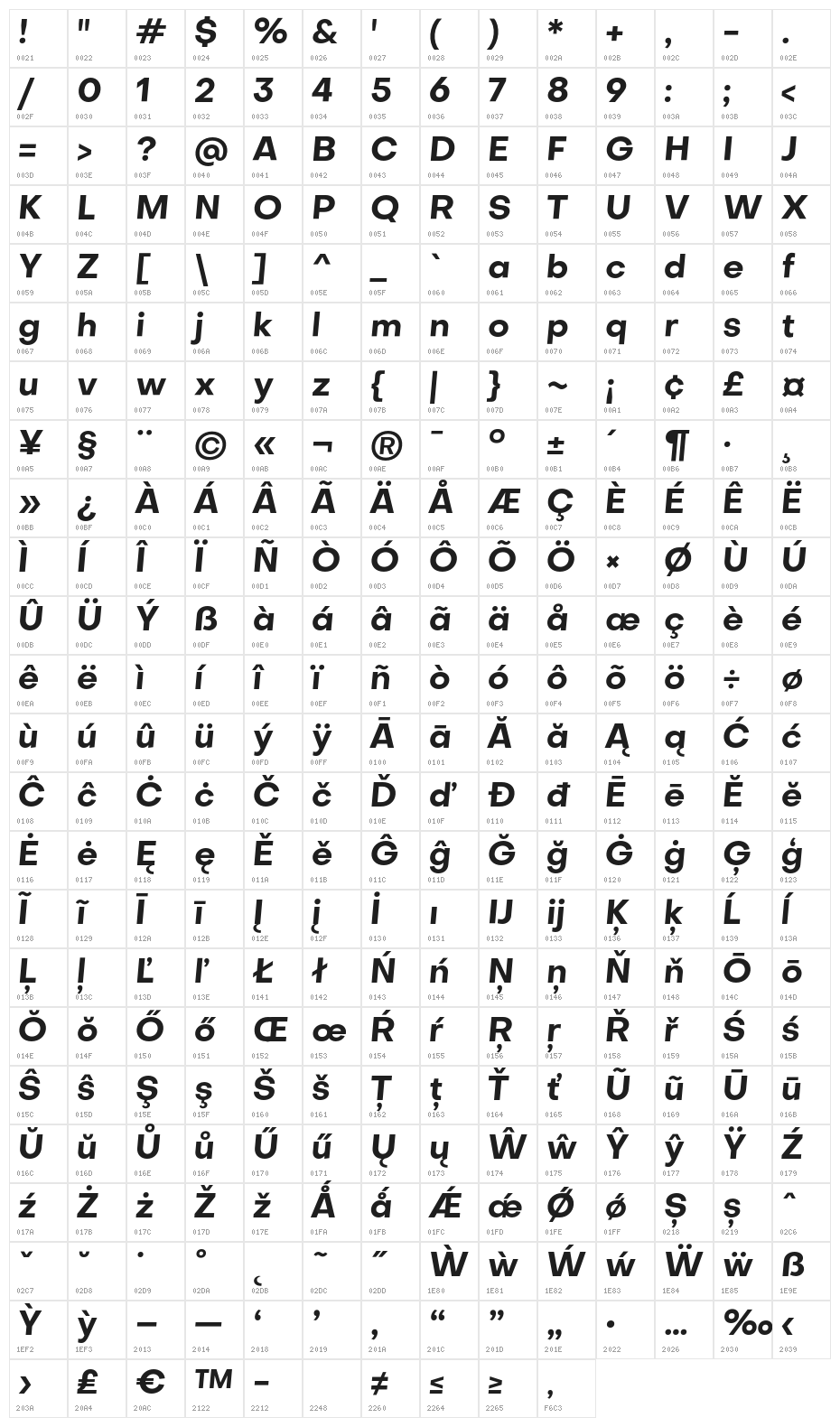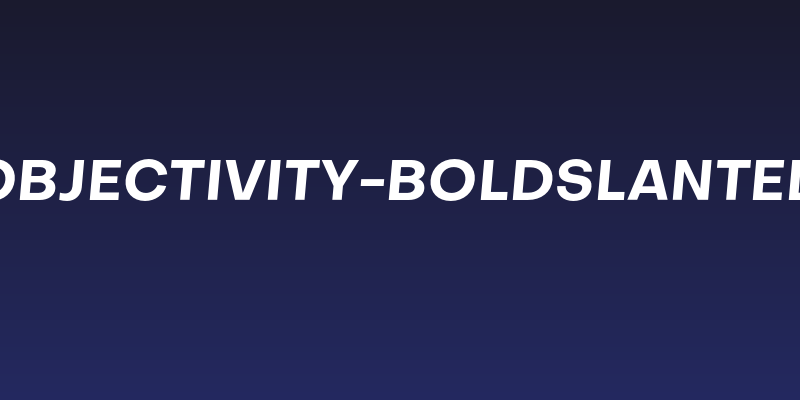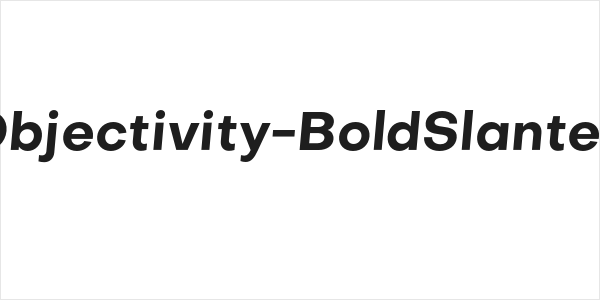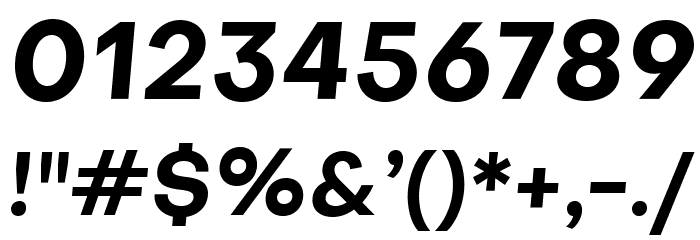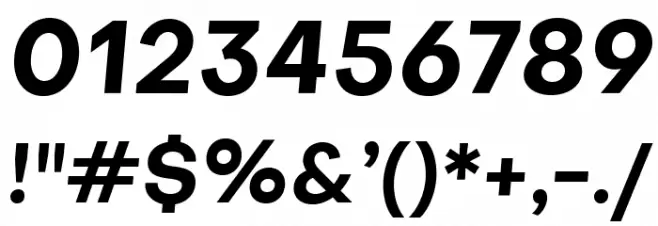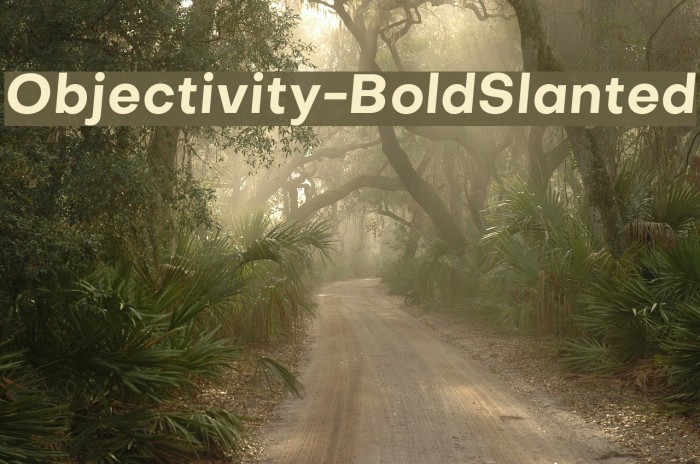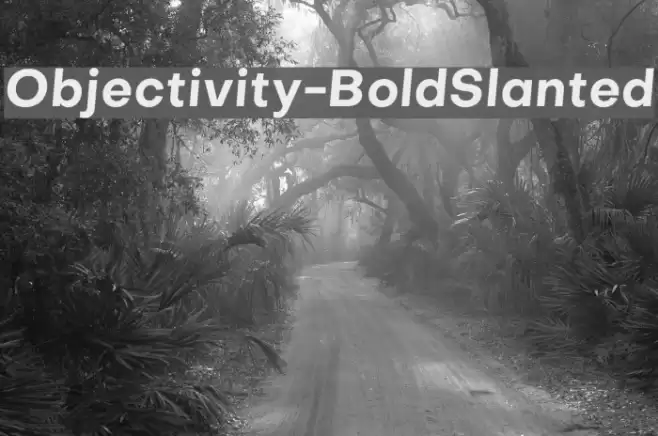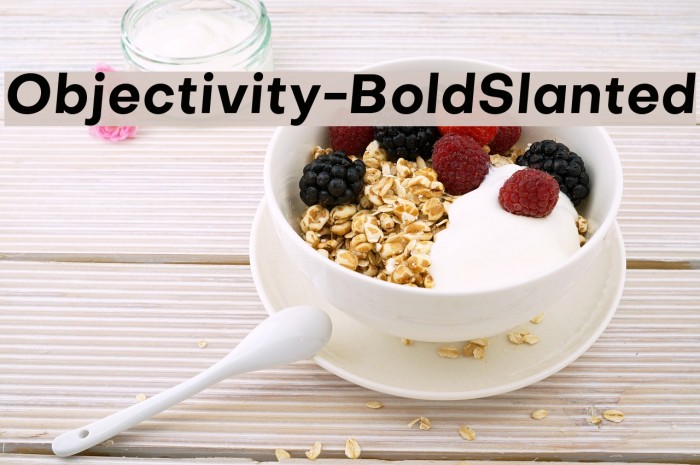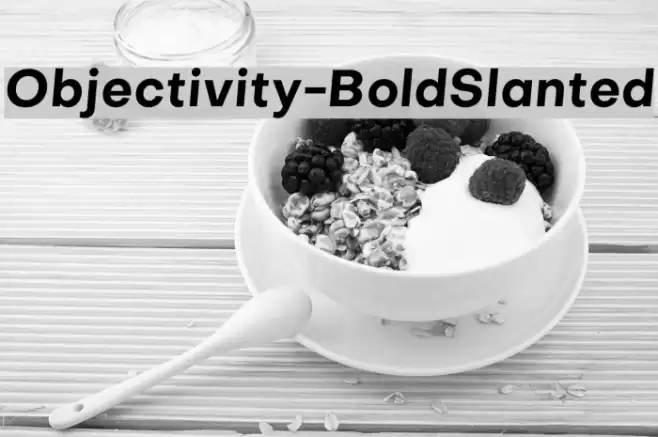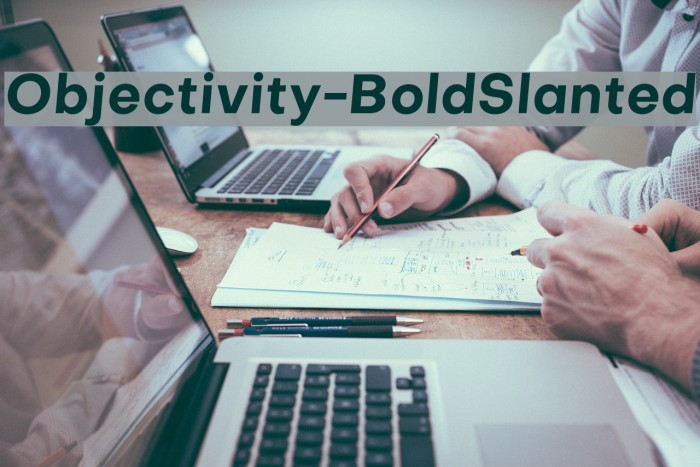
Objectivity-BoldSlanted Font
Objectivity-BoldSlanted Description
This typeface features a bold and slanted design, characterized by its strong, assertive presence. The letters are uniformly thick, providing a consistent and powerful look. The slant adds a dynamic and forward-moving feel, making it suitable for modern and energetic designs. The uppercase and lowercase letters are well-proportioned, ensuring readability and balance. The numerals and special characters maintain the same boldness and slant, offering a cohesive appearance across all elements. This font is ideal for making statements with its striking and contemporary style.
| Use Case | Headlines, Logos, Branding |
| Proposed Projects | Ideal for branding, advertising, headlines, and any project requiring a strong, modern aesthetic. |